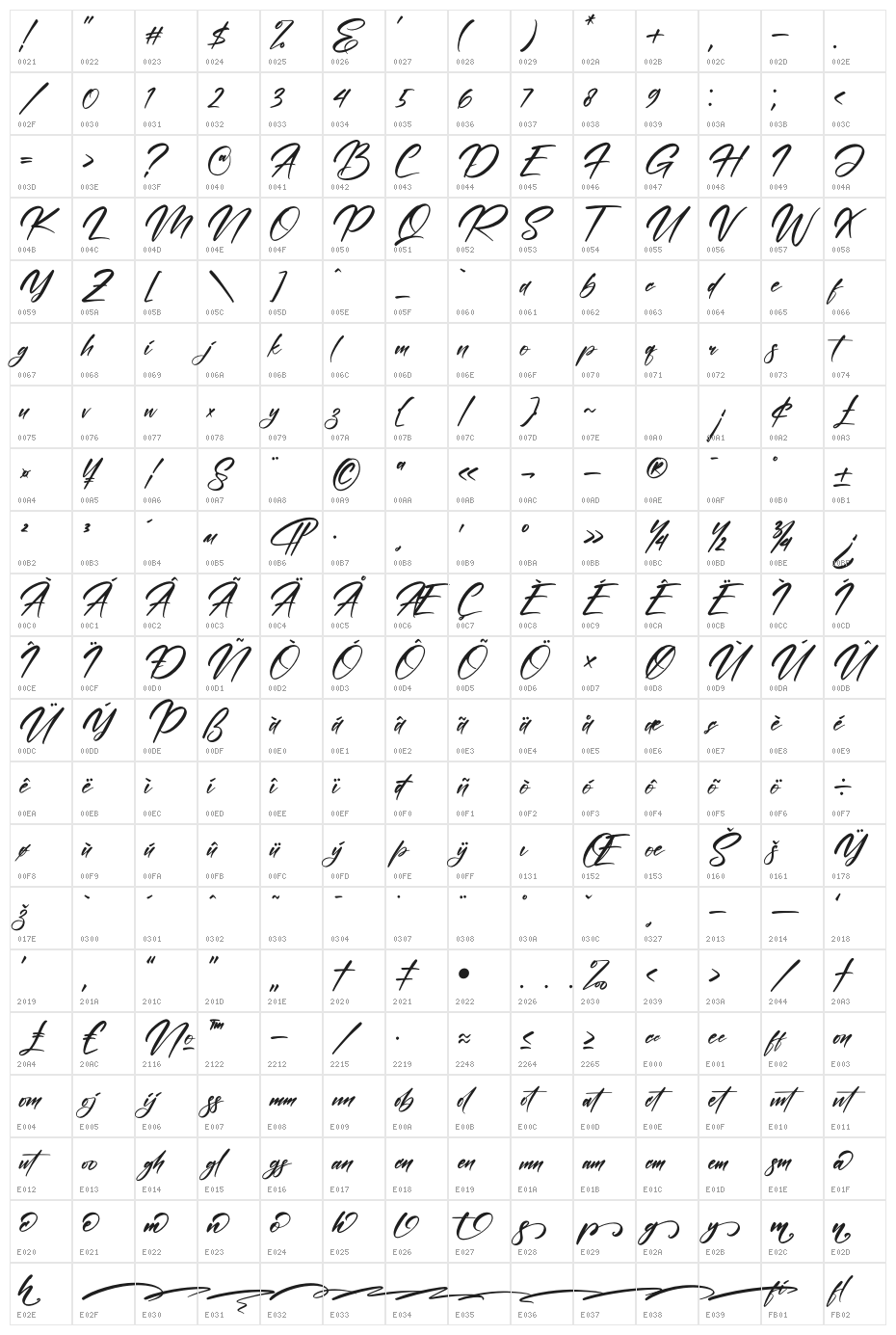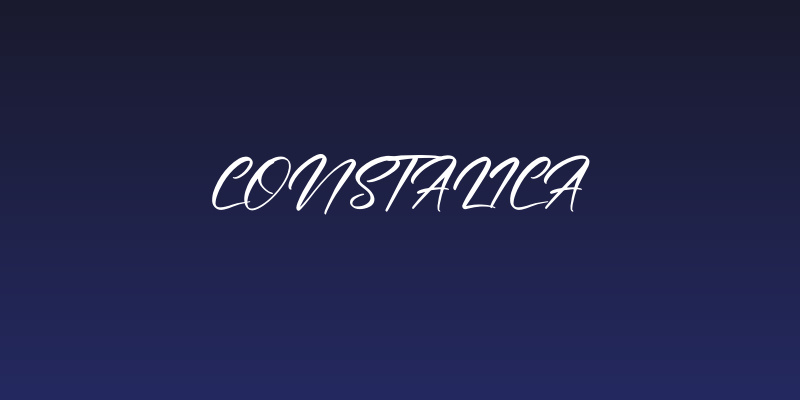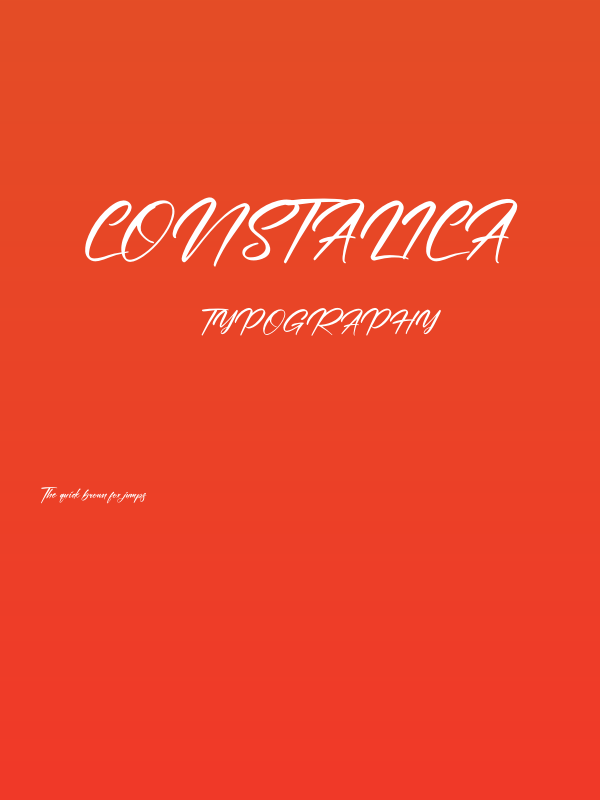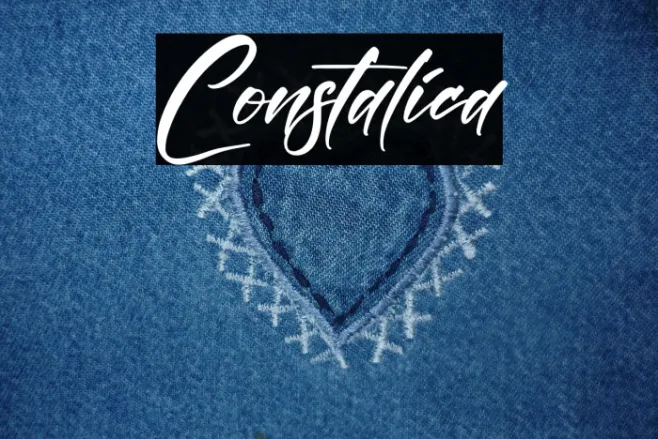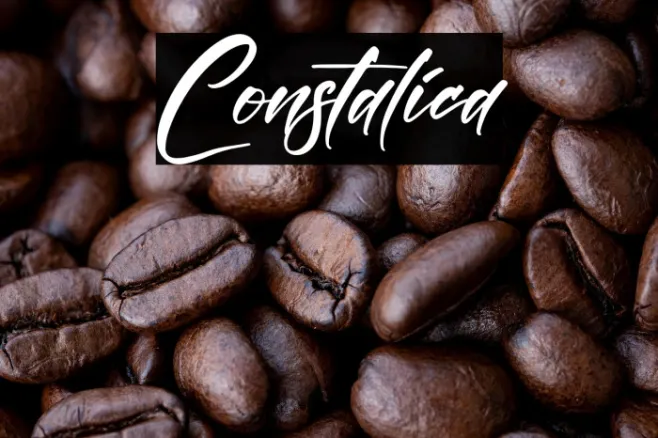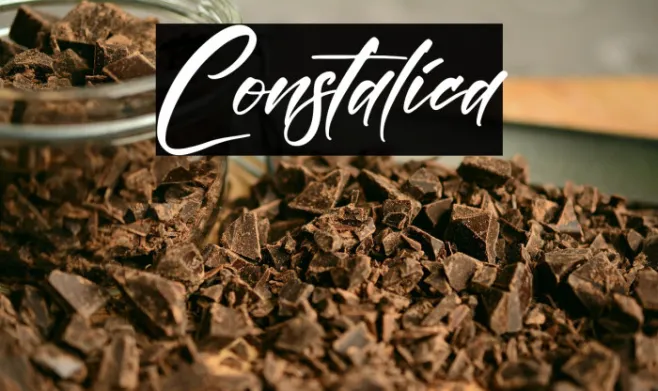
Constalica Font
Constalica Description
This font exhibits a dynamic and flowing script style, characterized by its elegant and fluid strokes. The uppercase letters are bold and sweeping, with a sense of movement that suggests a handwritten quality. The lowercase letters maintain this fluidity, with some characters featuring distinctive loops and flourishes. The numerals are consistent with the overall style, offering a cohesive look. Special characters are creatively integrated, maintaining the font's artistic flair. This font is ideal for projects that require a touch of sophistication and personality.
| Proposed Projects | Ideal for wedding invitations, branding, logo design, and elegant stationery. |